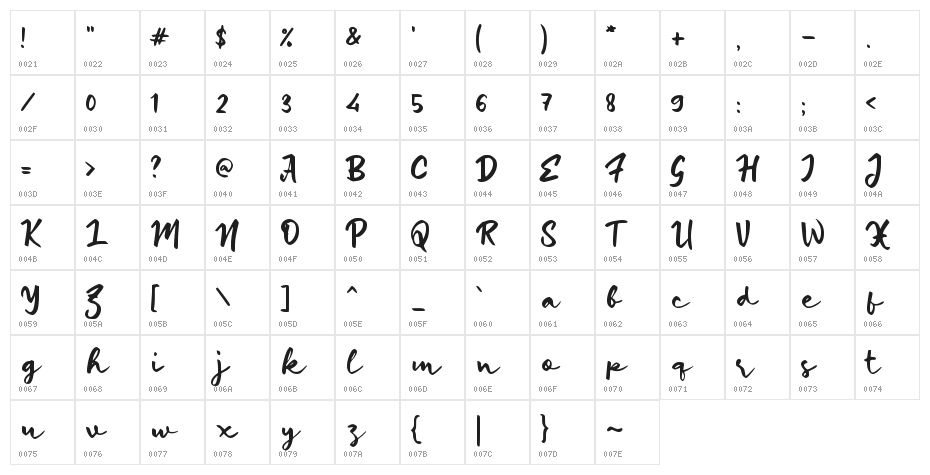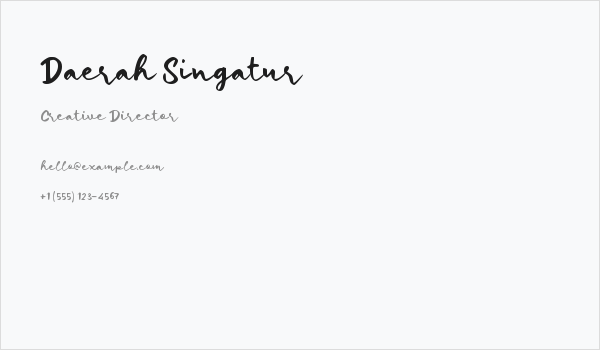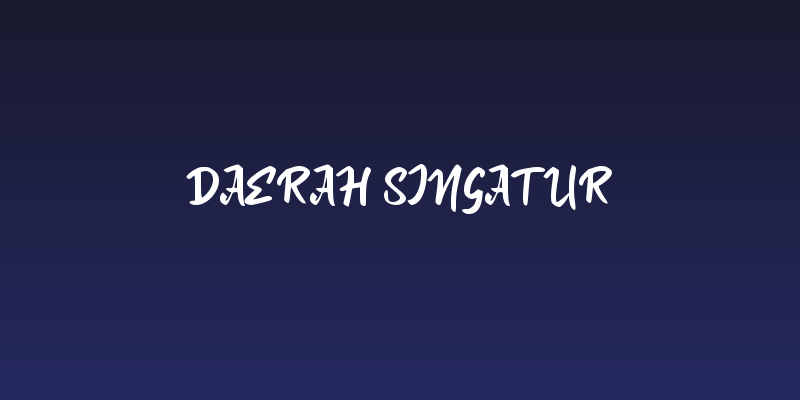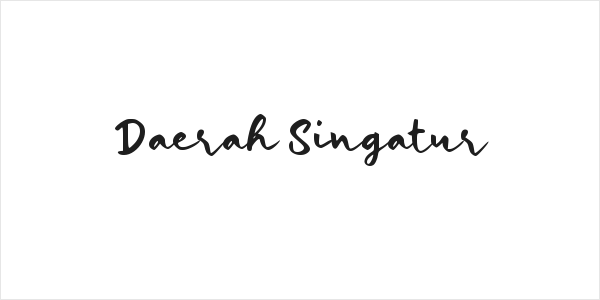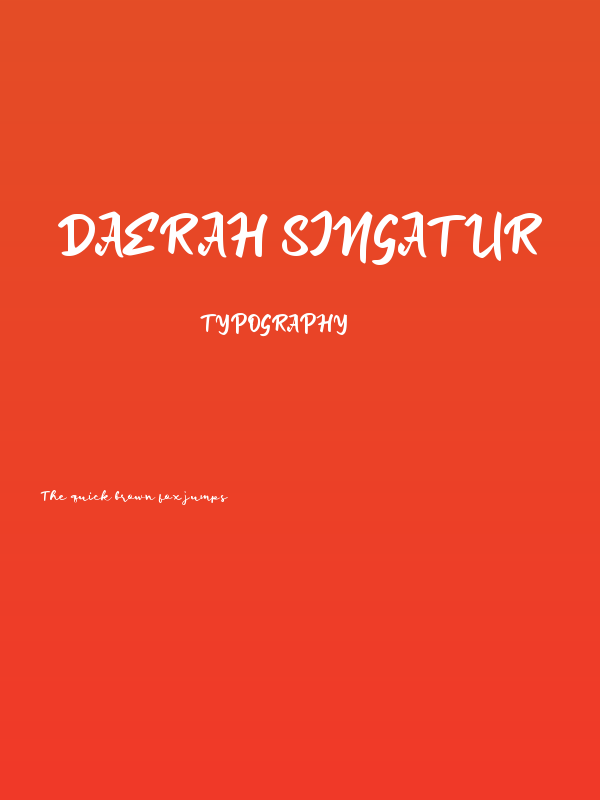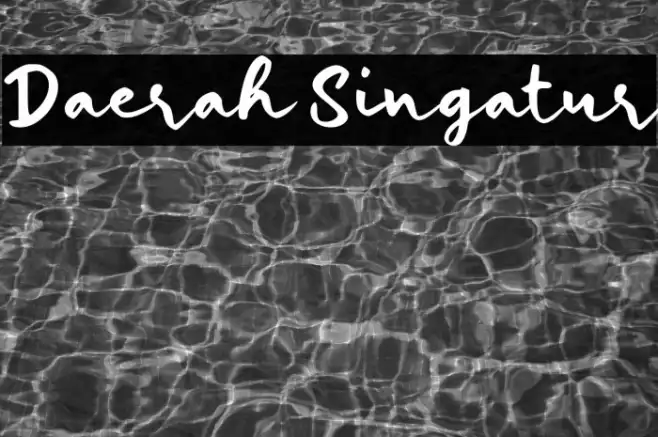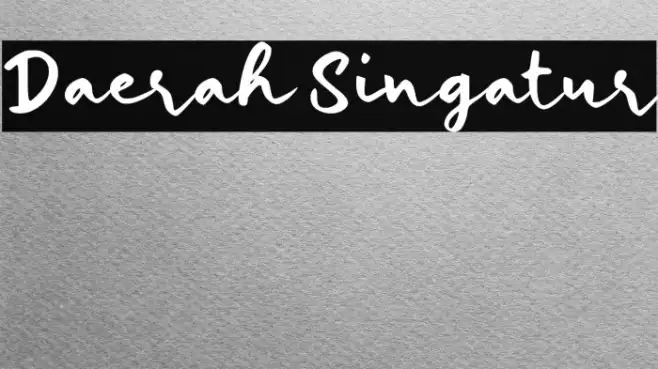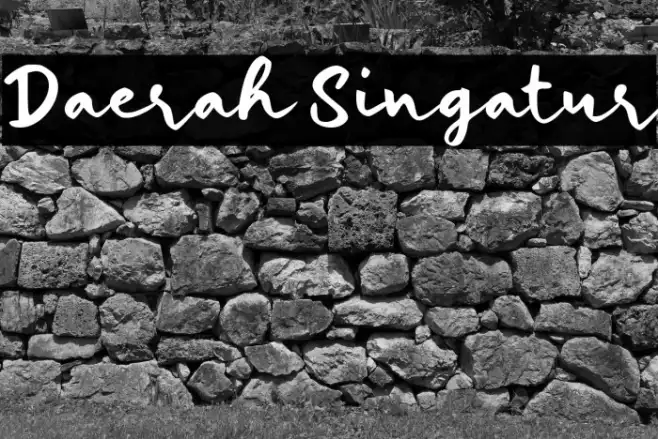
Daerah Singatur Font
Daerah Singatur Description
This font features a flowing, cursive style that mimics the fluidity of handwritten script. The uppercase letters are bold and dynamic, with a slight slant that adds a sense of movement and elegance. The lowercase letters maintain a consistent flow, connecting smoothly in a way that enhances readability while preserving the artistic flair. Numbers and special characters are crafted with the same attention to detail, ensuring a cohesive look across all elements. The overall design is both modern and timeless, making it versatile for various applications.
| Proposed Projects | Ideal for personal branding, invitations, greeting cards, and creative projects that require a personal touch. |